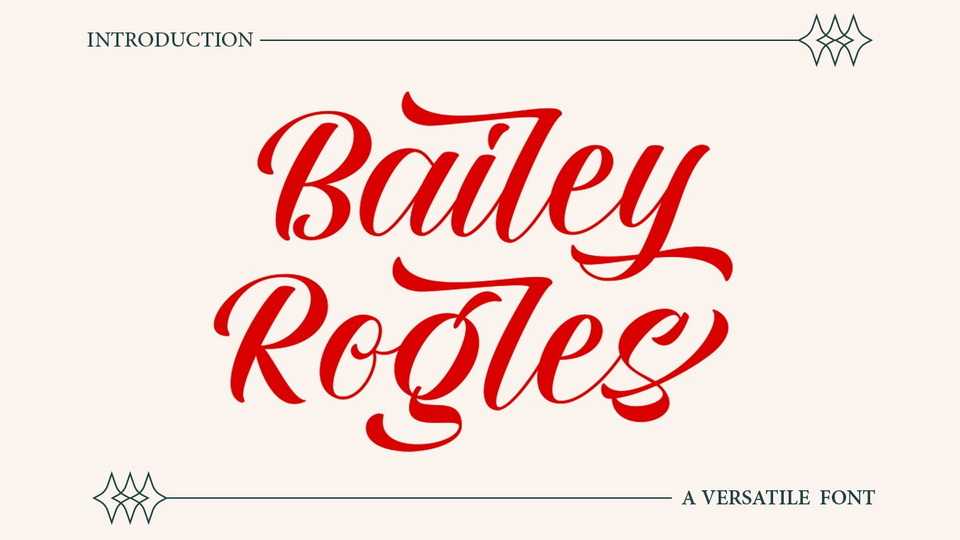
Download Bailey Rogles font, a retro signage typeface, bold and clean. Bailey Rogles is very versatile and very interesting, you can create so many different typographic layouts easily and quickly.
Designer: RCKY Studio